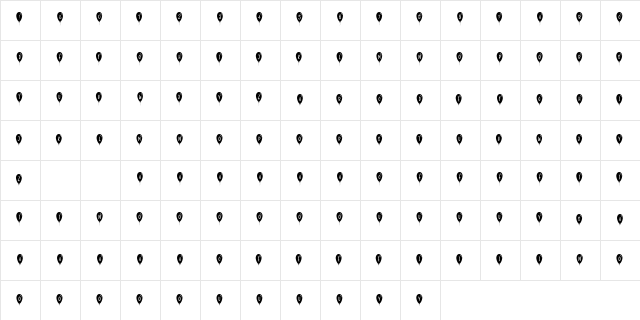
MyCuTEBaLlON Regular
Design Context for MyCuTEBaLlON Typeface
MyCuTEBaLlON is a composed and adaptable typeface that performs quietly and consistently across a wide range of design contexts.